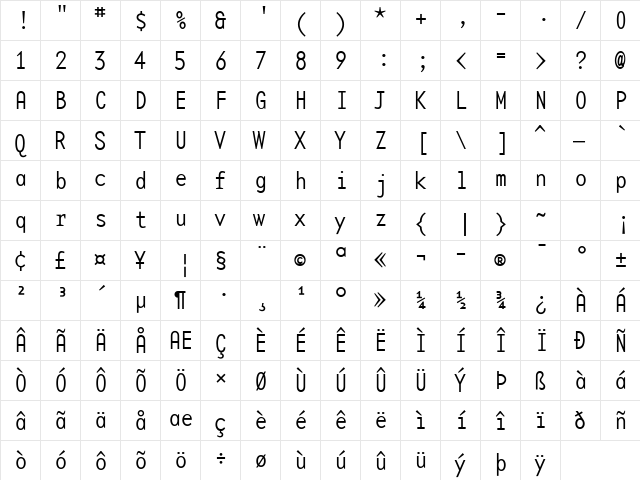
BaseMono-NarrowThin Thin Font Preview
BaseMono-NarrowThin Thin
BaseMono-NarrowThin Thin Font Details
Design Context for BaseMono-NarrowThin Typeface
BaseMono-NarrowThin brings the precise, column-aligned rhythm of monospaced typography to designs that value technical clarity and systematic order. The delicate stroke weight brings airiness and refinement to layouts.
A natural fit for code editors, technical documentation, developer-focused branding, and terminal-inspired UI.
Pro Tip: Pair BaseMono-NarrowThin with a proportional sans for UI contexts where code-style labels and regular body copy need to coexist.